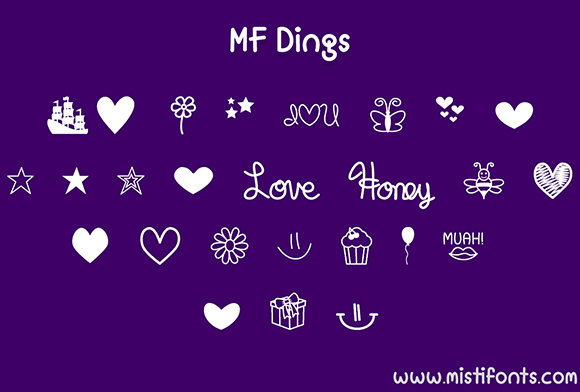
MF Dings Font
About MF Dings Font
Introducing MF Dings: A Collection of Fun and Whimsical Symbols for Your Projects!
MF Dings is a delightful dingbat set packed with a wide range of charming and playful symbols that are sure to add a touch of whimsy to your designs. Whether you’re working on graphic design, illustration, web design, or any other creative project, these symbols will bring a sense of joy and creativity to your compositions.
The symbols in MF Dings are thoughtfully designed with a sweet and whimsical aesthetic. From cute animals and nature-inspired icons to decorative elements and unique shapes, each symbol exudes its own personality and adds a delightful touch to your designs. With MF Dings, you can easily infuse your projects with a sense of fun and lightheartedness.
The versatility of MF Dings allows you to use these symbols in a variety of ways. Incorporate them into logos, icons, illustrations, patterns, or even as decorative elements in typography. The possibilities are endless, and the charming nature of the symbols ensures that they will bring a smile to anyone who sees them.
One of the great benefits of using dingbat sets like MF Dings is the time-saving aspect. Instead of creating each symbol from scratch, you can simply select the ones you need from the set and incorporate them effortlessly into your designs. This not only speeds up your workflow but also ensures consistent and visually appealing results.
The whimsical nature of MF Dings makes it a perfect choice for a wide range of projects. Whether you’re designing greeting cards, children’s books, social media graphics, or any other creative endeavor, these symbols will add a touch of sweetness and playfulness to your work. They are particularly well-suited for projects aimed at children or those that require a lighthearted and whimsical vibe.
The joy of using dingbat sets like MF Dings is that they allow you to easily enhance your designs with visually captivating symbols. They serve as creative building blocks that can elevate your compositions and make them stand out. With MF Dings, you can effortlessly add that extra touch of whimsy and personality that will make your designs truly special.
So, if you’re looking to infuse your projects with a dose of fun and creativity, look no further than MF Dings. Let the charming symbols inspire your imagination and bring your designs to life. With their sweet and whimsical design, these symbols are sure to captivate your audience and add a touch of magic to your creations.
Embrace the delightful world of MF Dings and let the symbols take your designs to new heights. Whether you’re a professional designer, an illustrator, or a creative enthusiast, these fun and whimsical symbols will become valuable assets in your creative toolkit.
So don’t miss out on the opportunity to add a touch of sweetness and playfulness to your designs. Explore the possibilities of MF Dings and unlock a world of creativity and joy for your projects. Let these symbols be the enchanting companions that elevate your designs and bring a smile to the faces of your audience.